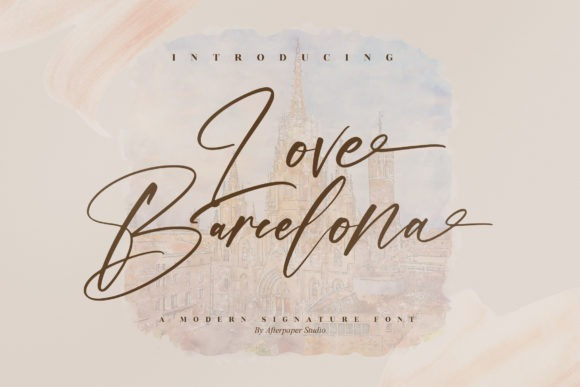
Love Barcelona Font
Love Barcelona Font – Modern Signature Font, from Afterpaper Studio, is a Modern Signature Font, suitable for any projects such as logos, branding projects, homeware designs, product packaging, mugs, quotes, posters, shopping bags, t-shirts, book covers, name card, invitation cards, greeting cards, label, photography, watermark, special events, and all your other lovely projects that need a beautiful script taste.